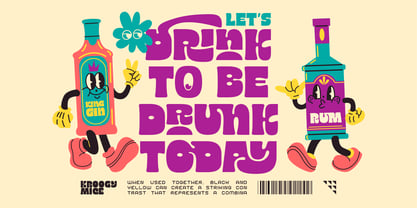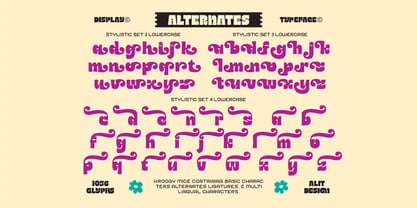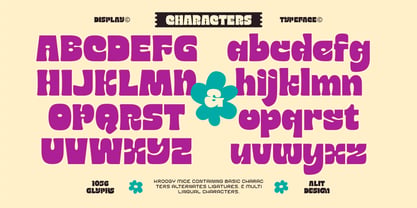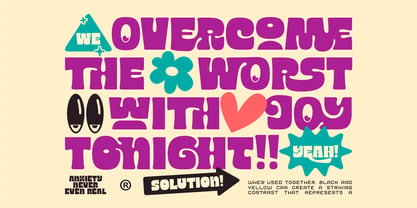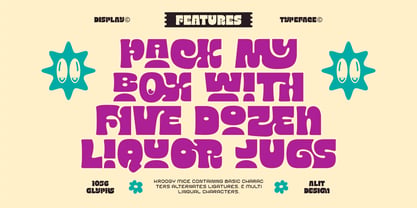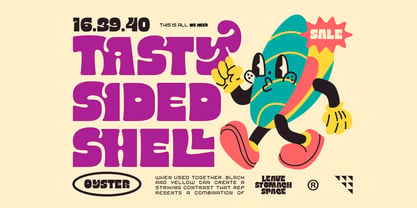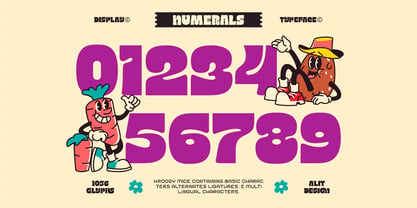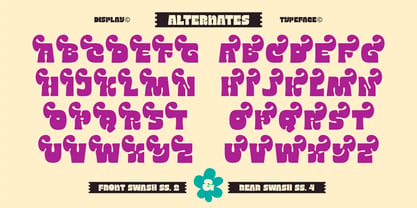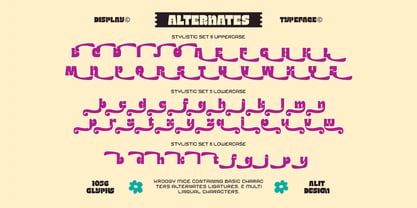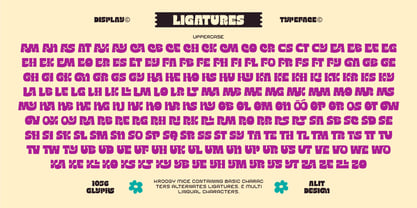
Kroogy Mice
by Alit Design
The Kroogy Mice Font Family was designed by Alit Suarnegara and published by Alit Design. Kroogy Mice contains 1 styles. More about this family
Kroogy Mice Typeface: Retro Vibes, Modern Playfulness! Inject a massive dose of personality into your designs with Kroogy Mice, a quirky and expressive typeface that perfectly blends nostalgic "Rubber Hose" cartoon aesthetics with a bold, contemporary street-style twist. Designed for those who aren't afraid to stand out, Kroogy Mice is a visual powerhouse. It features exaggerated curves, unique "eye" details within the counters, and a chunky, high-contrast weight that demands attention. Whether you’re designing high-energy streetwear, eye-popping product packaging, or a brand identity that needs to feel alive, this font delivers a heavy-hitting "wow" factor. What’s Inside the Box? Kroogy Mice isn't just a font; it's a complete design toolkit. With a staggering 1,056 glyphs, you have limitless creative freedom: Diverse Stylistic Sets: From "Front Swashes" to "Rear Swashes," customize your type to flow perfectly within your layout. Dynamic Alternates: Choose between multiple character styles (Stylistic Sets 1-8) to find the exact vibe for your project—ranging from liquid-smooth curves to edgy, sharp flourishes. Extensive Ligatures: Both Uppercase and Lowercase ligatures ensure that every letter pair sits harmoniously and looks custom-made. Bonus Dingbats: Add that extra "spark" with a collection of retro-inspired icons, including stars, flowers, eyes, and abstract shapes that perfectly match the font's DNA. Multilingual Support: Reach a global audience with ease. Perfect For: Streetwear & Apparel: Create iconic t-shirt designs and hoodies. Packaging Design: Make snacks, drinks, and toys jump off the shelf. Poster Art & Covers: Bold headlines for events, music, or magazines. Digital Content: High-impact thumbnails and social media graphics. Logo & Branding: For brands that want a fun, rebellious, and memorable identity. Step into a world of savage elegance and playful grit. Download Kroogy Mice today and unleash the quirk!
Designers: Alit Suarnegara
Foundry: Alit Design